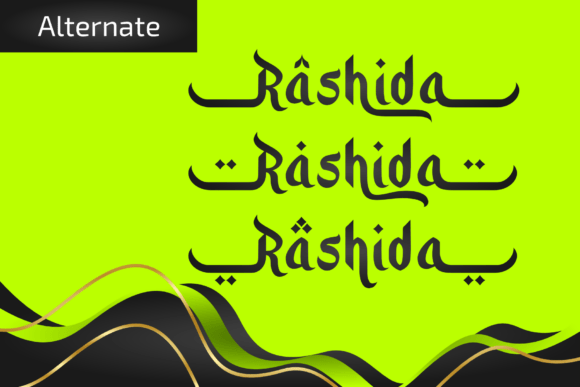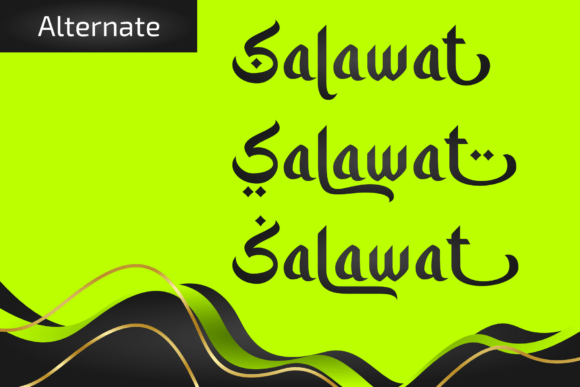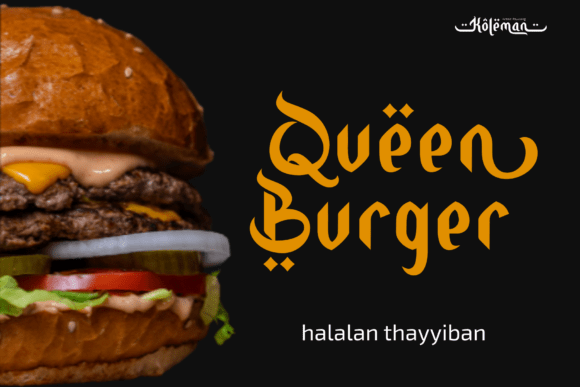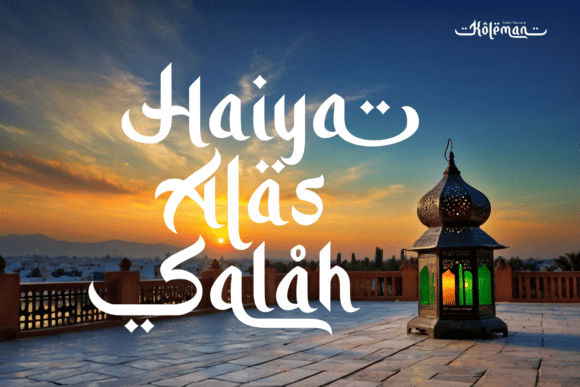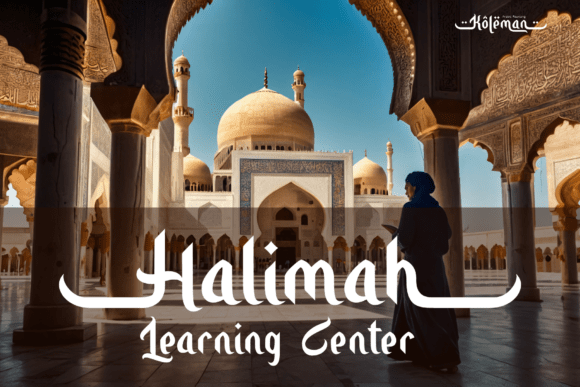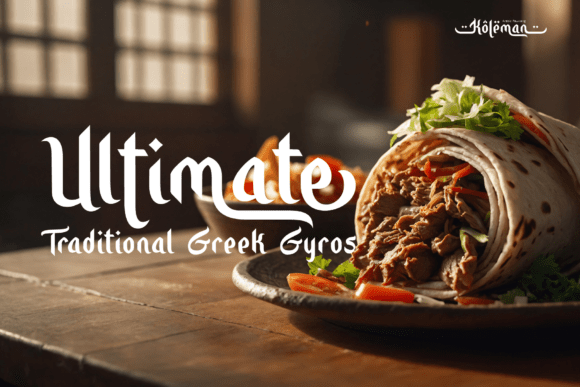
Introduction to Koleman Font
Have you ever stared at a blank canvas, waiting for inspiration to strike? It’s that moment when the perfect font can make all the difference. You’re searching for something that not only reads well but also tells a story. That’s where Koleman Font comes in – a masterful blend of modern sophistication and Middle Eastern allure that will elevate your design project to new heights.
As a designer, you understand the importance of choosing the right font to convey your message. With Koleman Font, you’ll get a high-quality, free download that’s perfect for any creative project. Its transparent background makes it easy to integrate into your design, while its unique characteristics add a touch of cultural richness to your work.
Whether you’re working on a logo, headline, or branding project, Koleman Font is the perfect design resource to help you stand out from the crowd. Its cosmopolitan feel and luxurious image will give your brand an international flair that’s hard to resist. So why settle for ordinary when you can have extraordinary with Koleman Font?
Key Features of Koleman Font
- Unique and modern font style, ideal for use as a design resource in various applications.
- Supports a wide range of languages, making it a versatile design resource.
Honest Review: Koleman Font
I recently had the chance to work with the Koleman Font, and I must say it’s been a game-changer for my creative project. The font’s high quality is evident in its crisp lines and smooth curves, making it perfect for any design resource.
One of the standout features of the Koleman Font is its versatility. I was able to use it for both text and logo design, and it worked beautifully in each application. The transparent background option also made it easy to integrate into my existing design elements. ✨
Here are some of the key features that I appreciated:
- High-quality design with crisp lines and smooth curves
- Transparent background option for easy integration
- Perfect for use in logos, text, and other design elements
While the Koleman Font is an excellent resource, I did encounter a few limitations. For example, the font only comes in a limited range of weights, which can make it challenging to achieve the desired level of contrast. ⚠️ Additionally, the font may not be suitable for use in very small sizes, as it can become difficult to read.
Overall, I’m thoroughly impressed with the Koleman Font. Its high quality, versatility, and free download make it a must-have resource for any designer. I’m excited to continue using it in my future projects!
Koleman Font is a high-quality, free download design resource ideal for creative projects. This versatile font features a transparent background, making it perfect for various applications.
Koleman Font is commonly used in various creative projects, including logos, business cards, and marketing materials. Its transparent background makes it ideal for use on images or graphics, allowing for a seamless design experience.